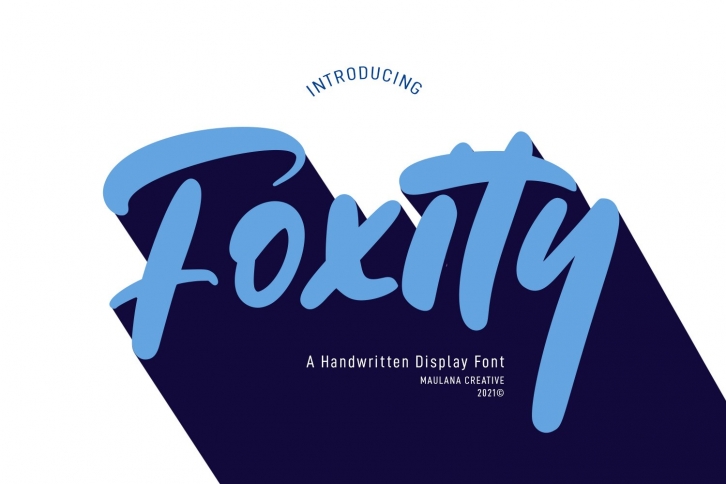
Foxity Handwritten Display is a beautiful font that was designed by Maulana Creative. It's a great choice for designers and creatives who need such a font. It was released on August 7, 2021 and the file size is 4.60 MB. Foxity Handwritten Display may give a more youthful, expressive and casual look to your project. It is a very beautiful, refined, elegant, and high-quality font.